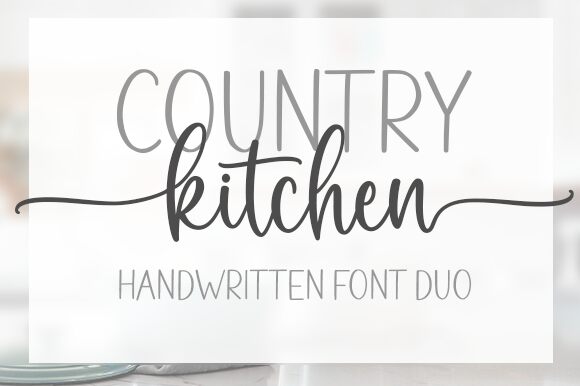
Country
Country, a handwritten font designed by Aldi Raya Pradipta, is a light typeface perfect for creating stylish logos and titles. With its graceful curves and elegant lines, Country is an ideal choice for branding projects, fashion magazines or creative-themed websites.